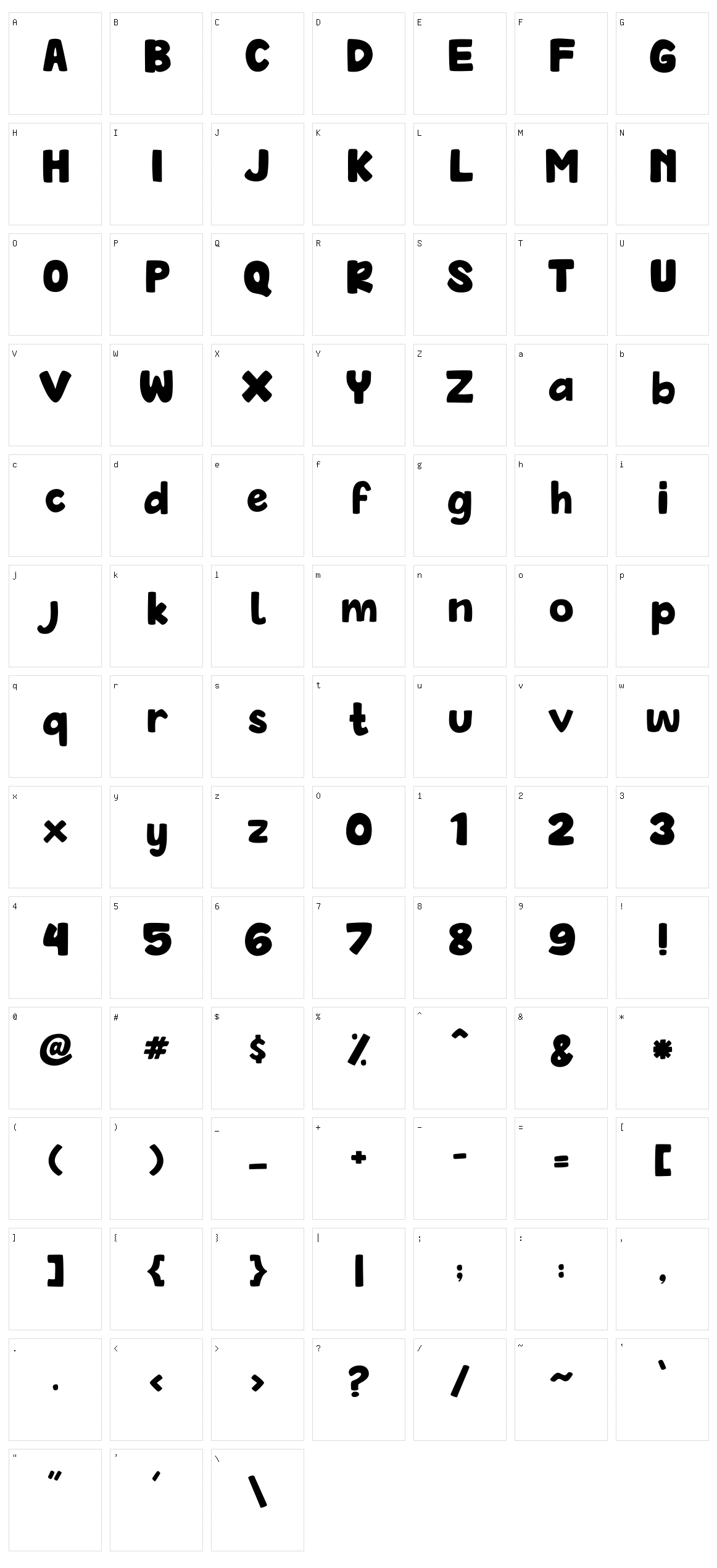
The free font Morning Rainbow is carefully designed by Ony Studio | Solutype, showcasing a thoughtful balance of creativity and usability and falls under the Cartoon font style. When you download the ZIP file, it contains only 13.52 KB of font files, making it lightweight and quick to download. Please review the license details below to understand permitted usage and distribution rights. If license information is not available, we recommend using this font for personal projects only or contacting the author directly for commercial usage permissions.